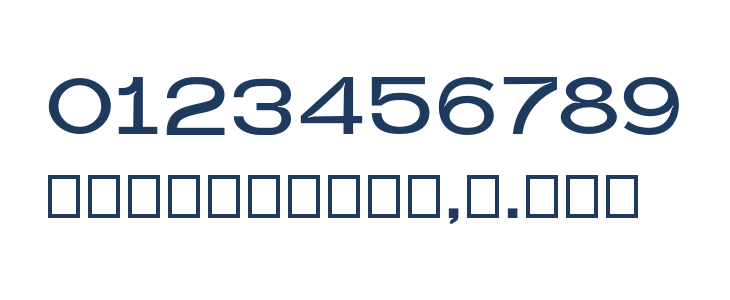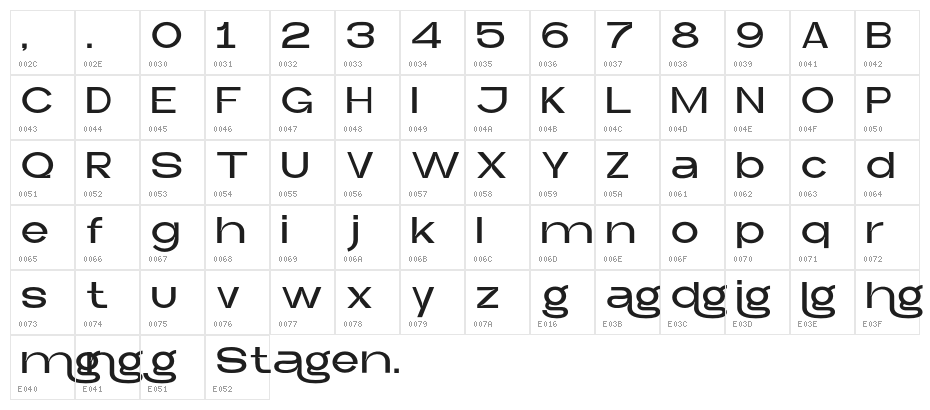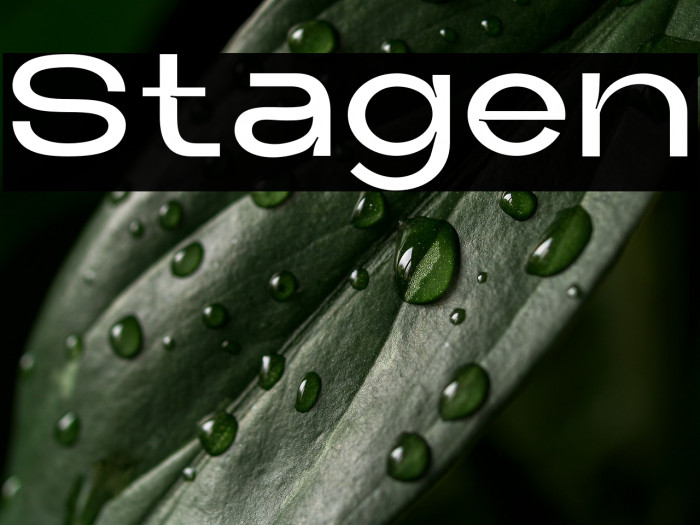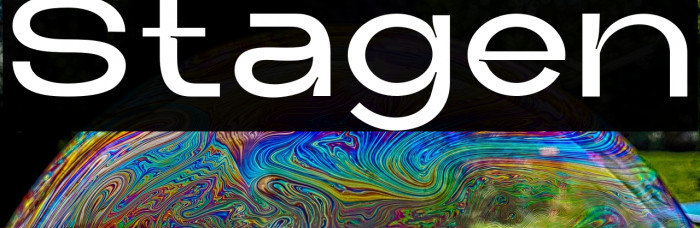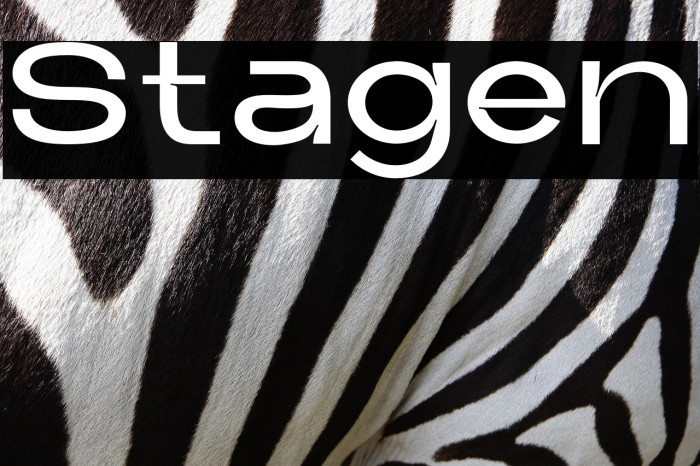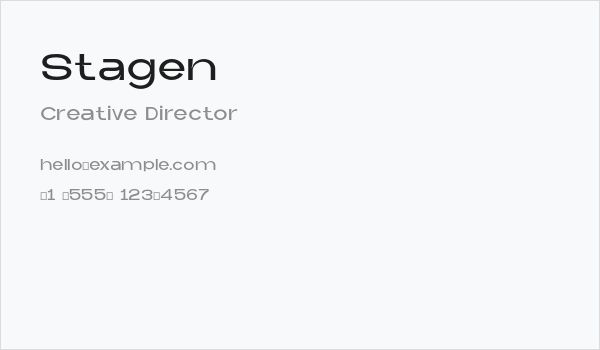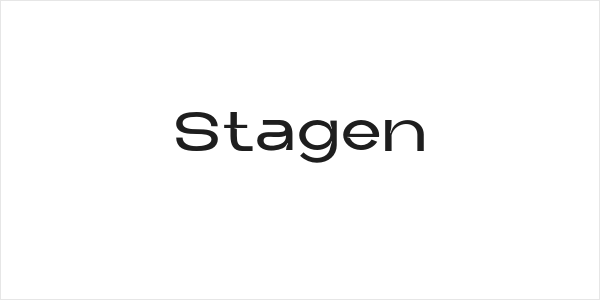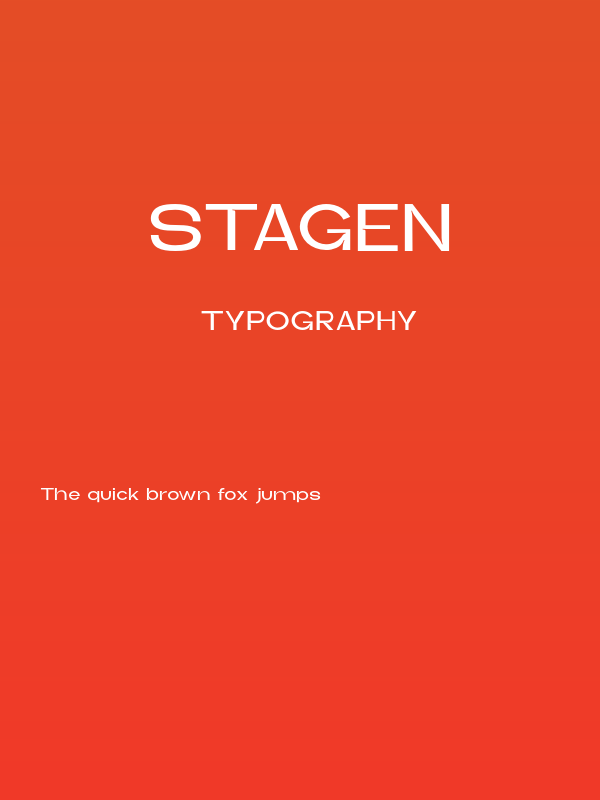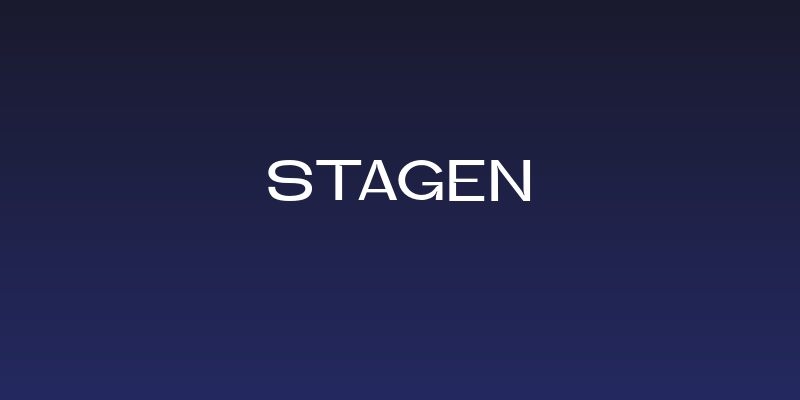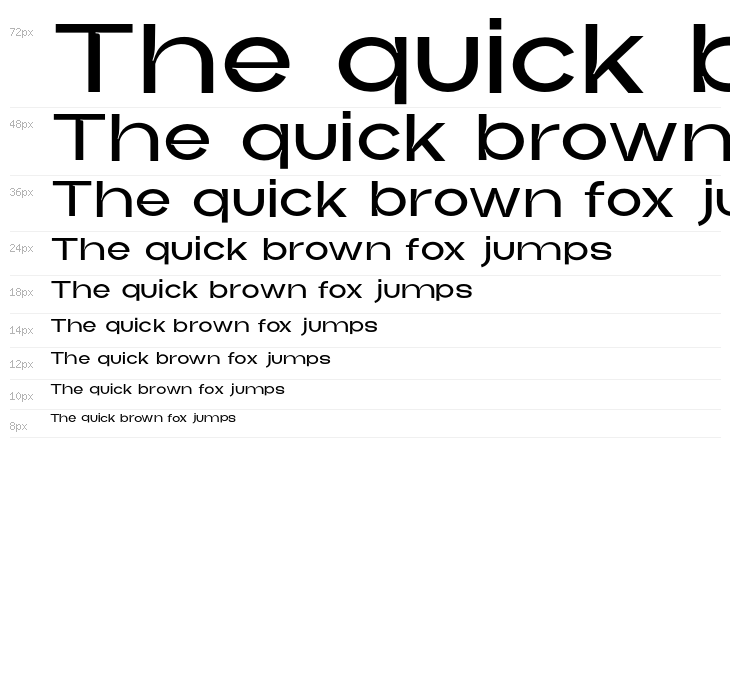
Stagen Font
Stagen Description
This font features a modern, geometric design with clean lines and a minimalist aesthetic. The uppercase letters are bold and structured, while the lowercase letters maintain a consistent roundness that adds a touch of softness to the overall appearance. The numerals are clear and straightforward, matching the font's contemporary style. The special characters are well-integrated, maintaining the same geometric precision. This font's simplicity and clarity make it highly versatile for various design applications.